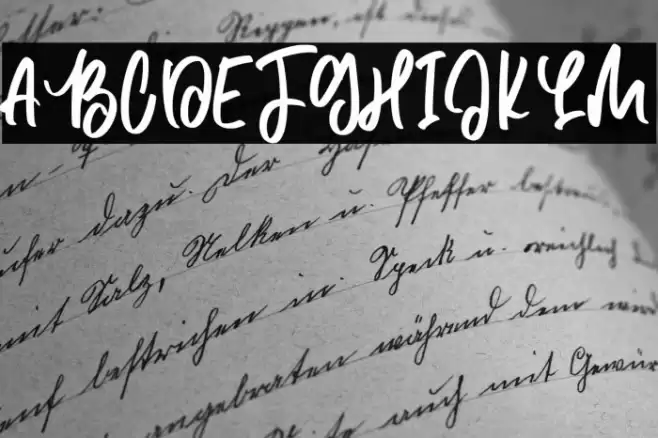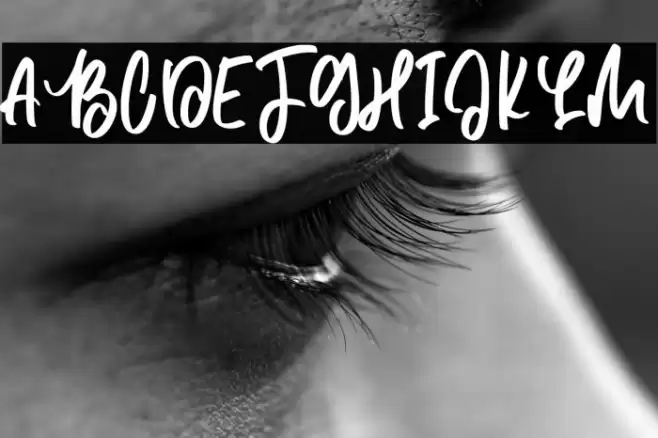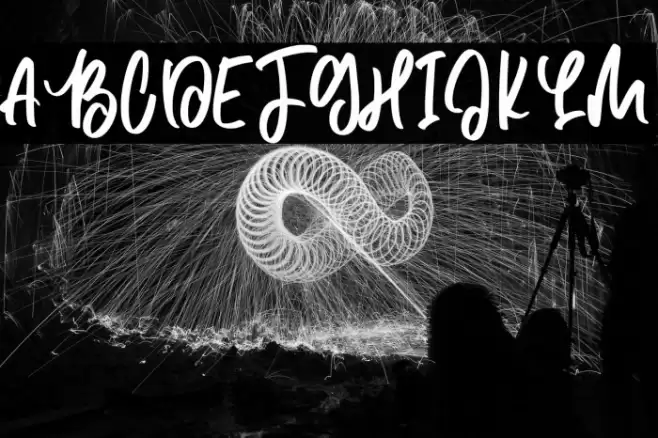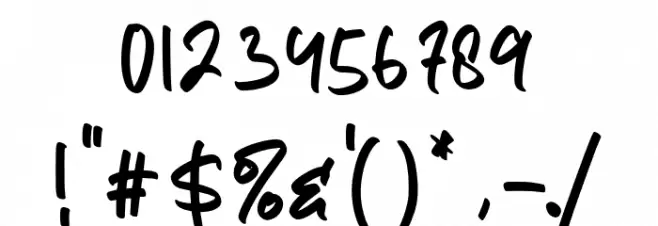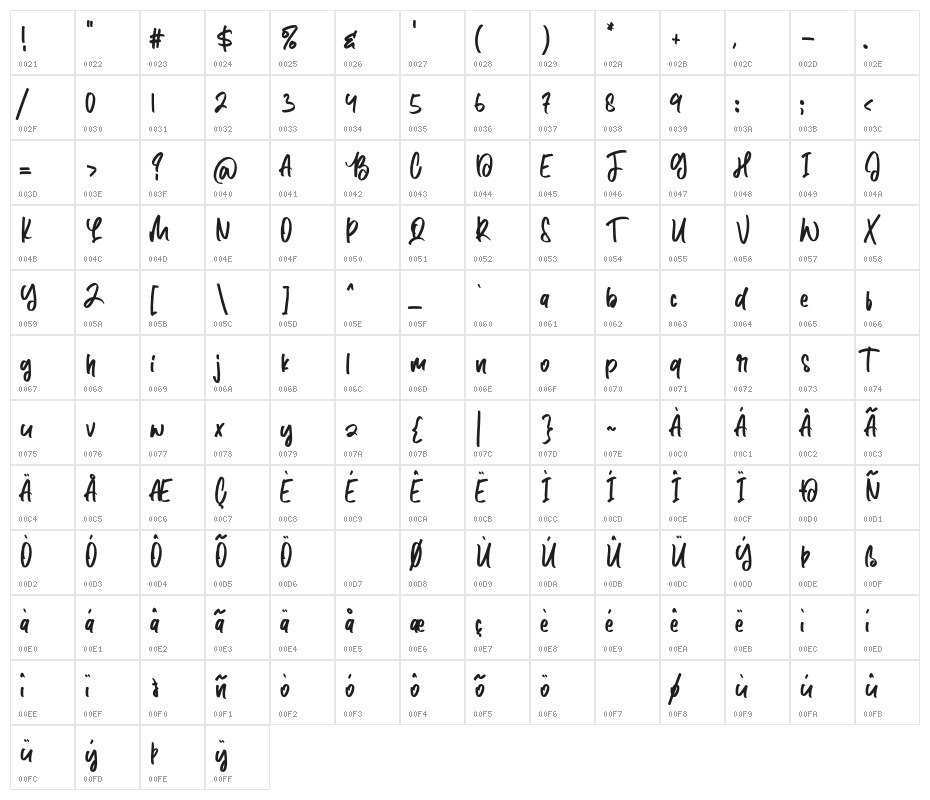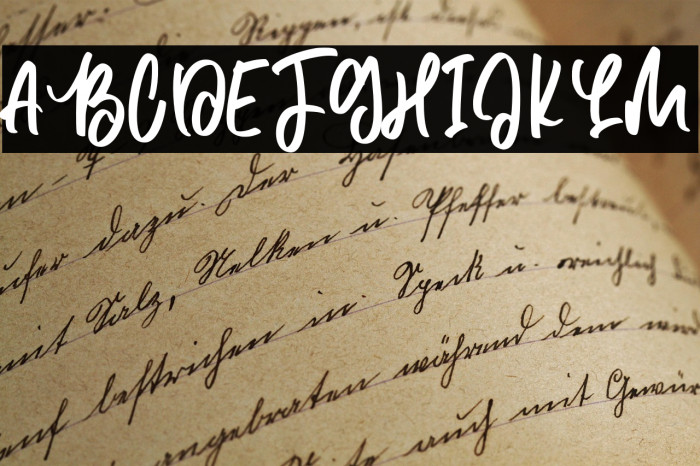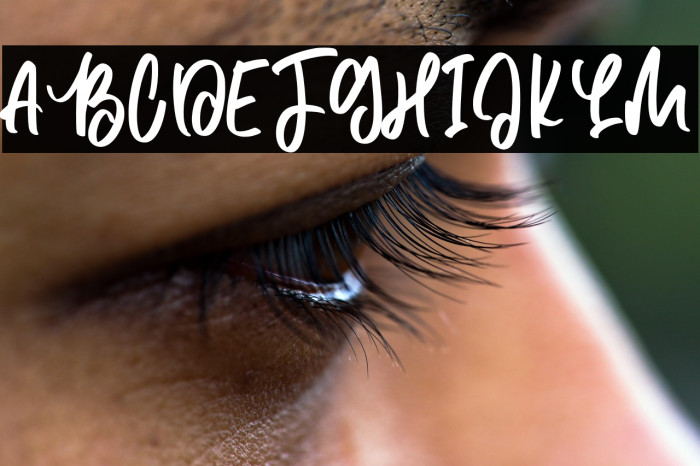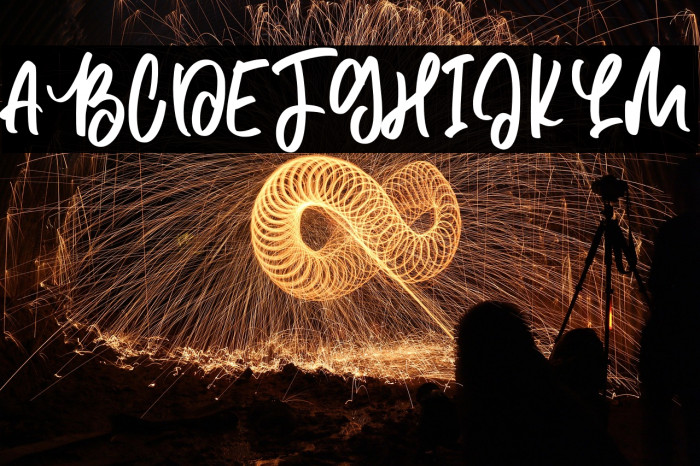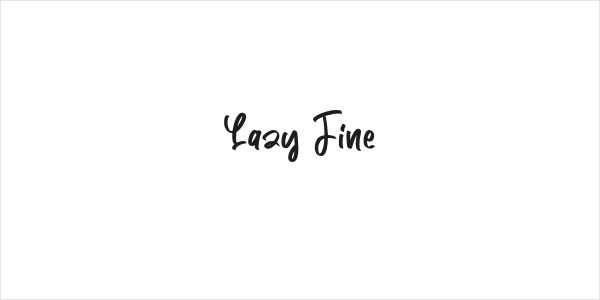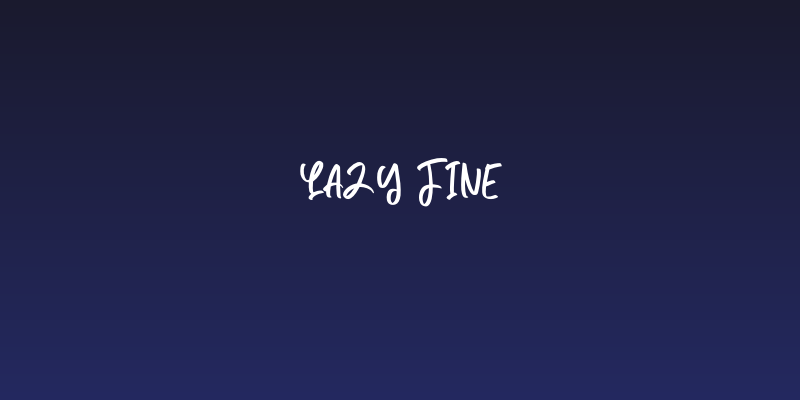
Lazy Fine Font
Lazy Fine Description
This font features a playful and energetic handwritten style, characterized by its bold and flowing strokes. Each letter is crafted with a sense of movement and spontaneity, giving it a lively and informal appearance. The uppercase and lowercase letters maintain a consistent style, with rounded edges and varying stroke widths that add to its dynamic look. The numerals and special characters are equally expressive, complementing the overall aesthetic. This font is perfect for projects that require a personal touch or a creative flair.
A bold, playful handwritten font with dynamic strokes from Uncategorized fonts.
- Proposed Projects: Ideal for greeting cards, posters, social media graphics, and branding projects that seek a personal and creative touch.